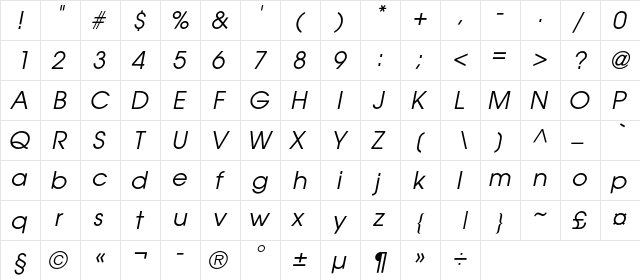
AGAvalancheC Italic
Design Context for AGAvalancheC Typeface
AGAvalancheC takes a measured approach to typography — its balanced proportions and neutral character make it a reliable workhorse for both digital and print work. The dynamic lean of this cut emphasises speed and emphasis in any layout.
Pro Tip: Use AGAvalancheC for emphasis, pull quotes, and subheadings where its slanted energy can add rhythm to the layout.